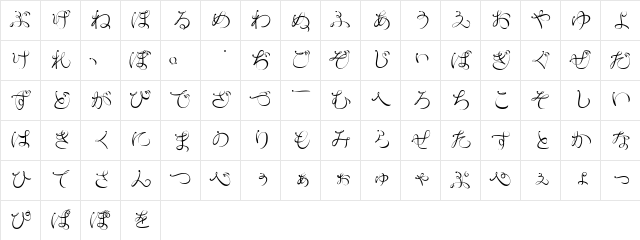
RyusenHir Regular Free Font
RyusenHir Regular
Design Context for RyusenHir
RyusenHir is a composed and adaptable typeface that performs quietly and consistently across a wide range of design contexts.